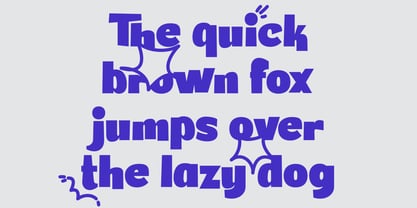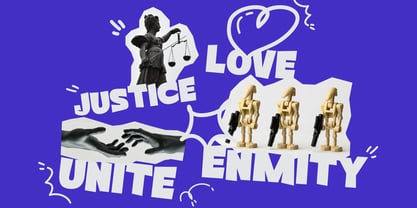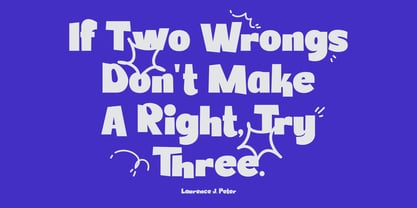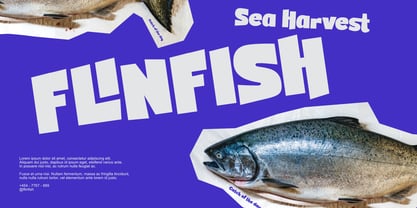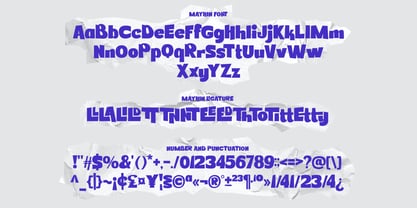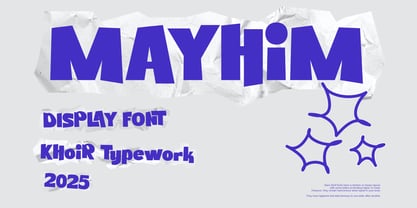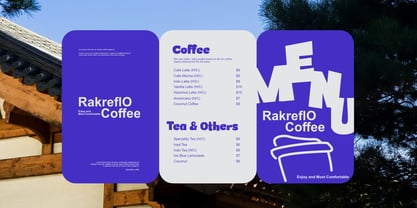
Mayhim
von Khoir
Die Schriftfamilie Mayhim wurde von Muhammad Romzul Khoir entworfen und von Khoir veröffentlicht. Mayhim enthält 1 Stile. Mehr über diese Familie
Sans Serif fonts have a random or messy layout, with some letters protruding higher or lower. However, they remain harmonious when typed in your work. They have ligatures that add harmony to one letter after another. Mayhim Uppercase Lowercase 75+ Language Ligature So what are you waiting for? immediately purchase this font, feel free to comment, or send me my PM Thank you for seeing